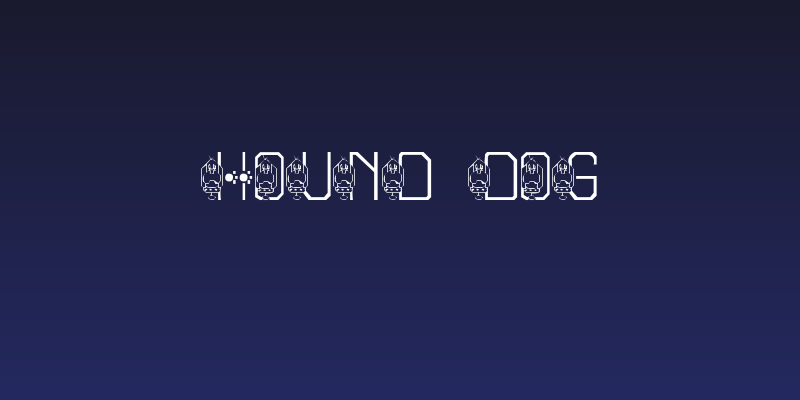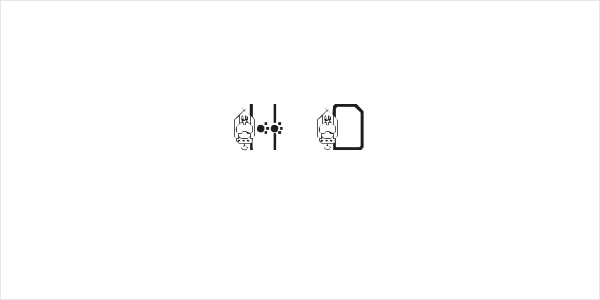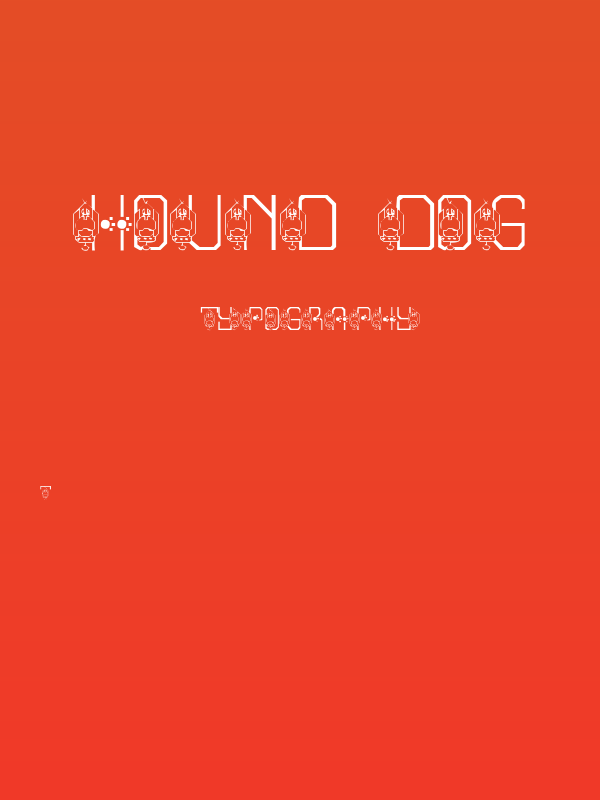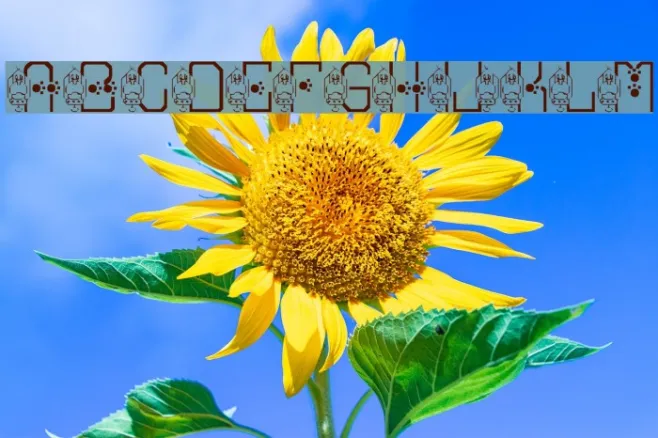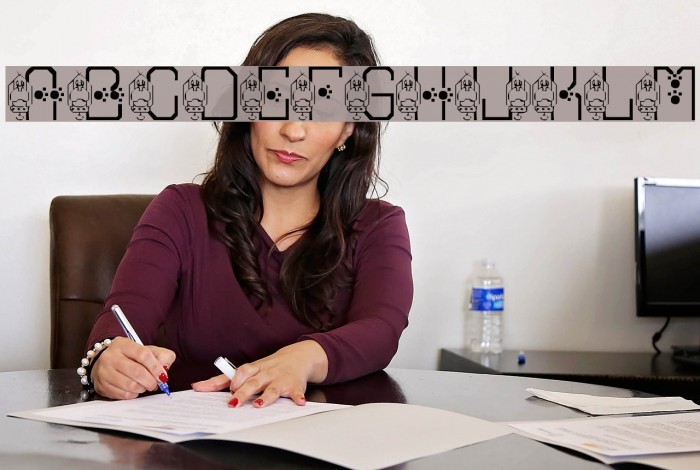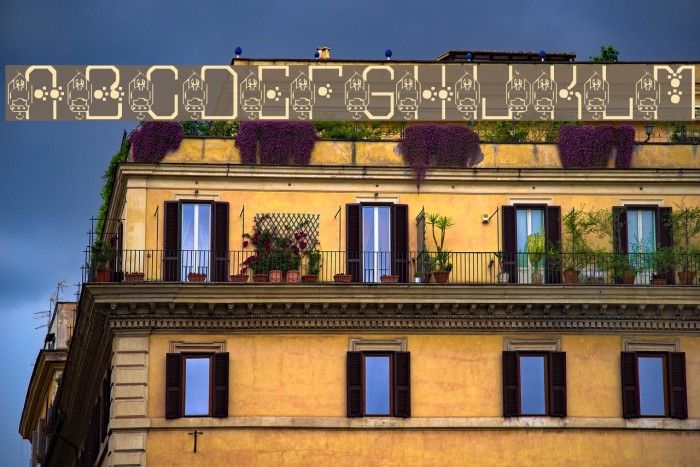
Hound Dog Font
Hound Dog Description
This playful and whimsical font features a unique design where each character is integrated with a cartoonish dog face. The letters are bold and geometric, with sharp angles and straight lines, creating a striking contrast with the rounded, friendly dog illustrations. The font maintains a consistent height across all characters, ensuring uniformity. The dog faces add a touch of humor and charm, making the font ideal for projects that require a light-hearted and fun aesthetic. The overall design is clean, with a focus on simplicity and readability, despite the decorative elements.
| Use Case | Logos, Posters, Children's Books |
| Proposed Projects | Ideal for children's books, pet-related branding, playful posters, and greeting cards. |